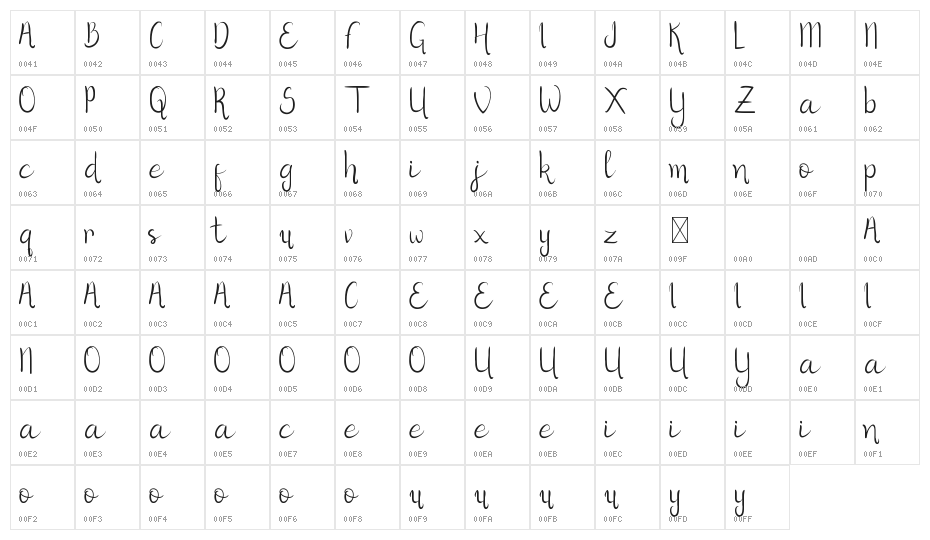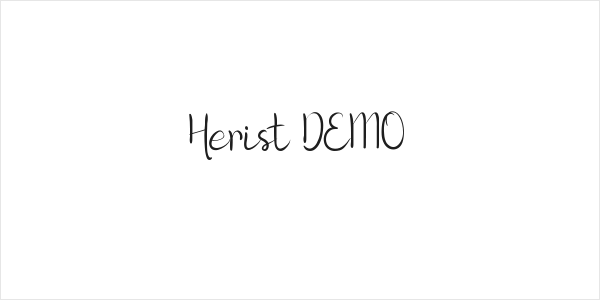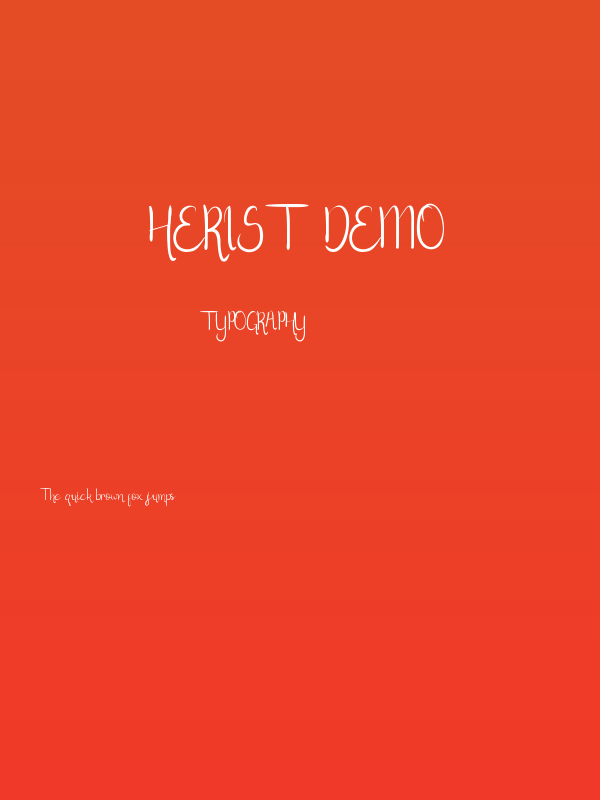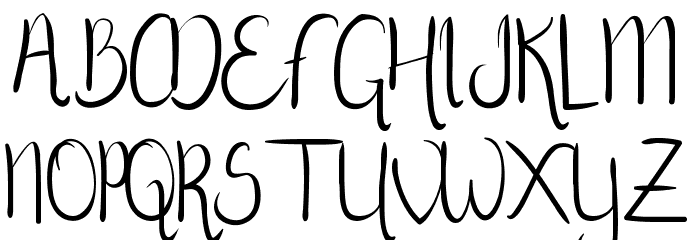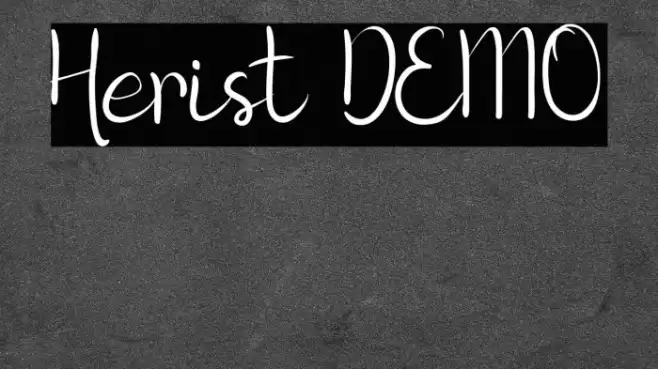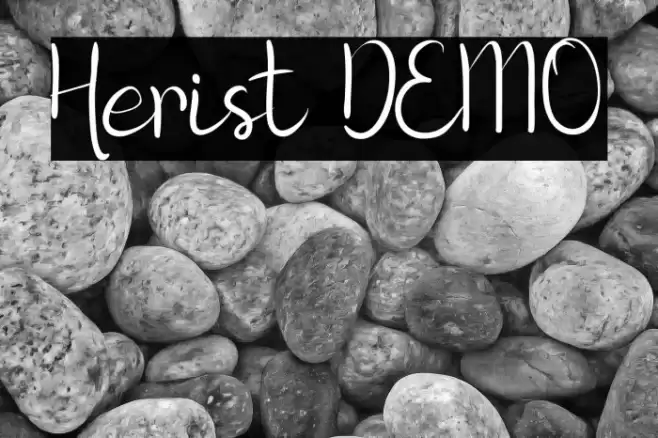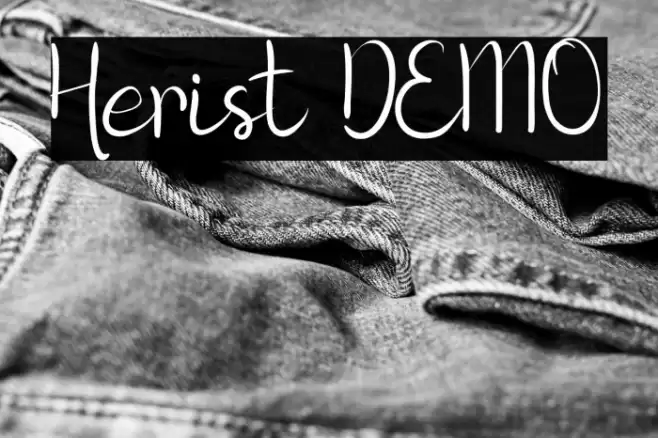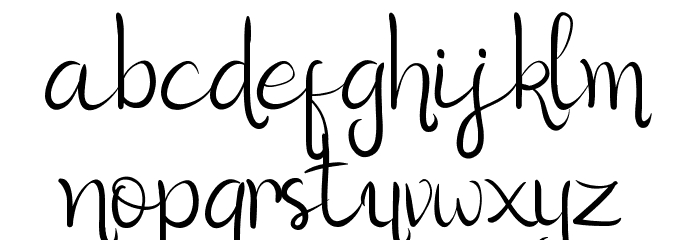
Herist DEMO Font
This font features a playful and whimsical script style, characterized by its flowing, hand-drawn appearance. The letters are tall and slender, with a slight slant that adds a dynamic feel to the text. Each character exhibits unique, artistic flourishes, particularly noticeable in the loops and curves of letters like 'g', 'y', and 'f'. The uppercase letters maintain a consistent height, while the lowercase letters vary slightly, adding to the casual, handwritten aesthetic. The strokes are moderately thick, providing a balanced contrast that ensures readability while maintaining an artistic flair. This font is ideal for projects that require a personal touch, such as invitations, greeting cards, or branding for creative businesses.
| Proposed Projects | Ideal for invitations, greeting cards, creative branding, and personal projects. |